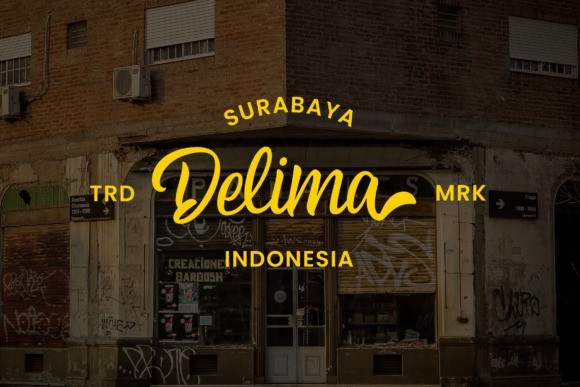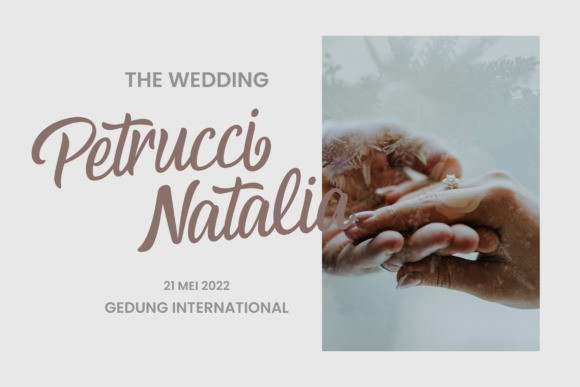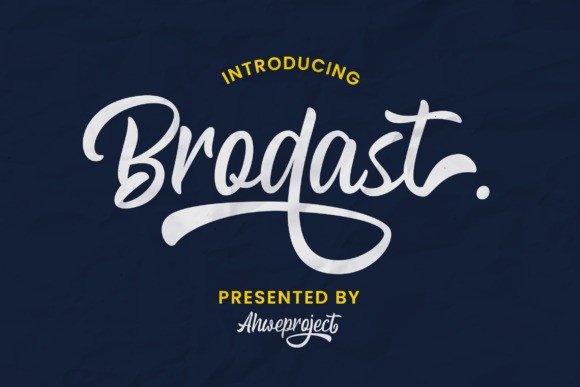
Brodast Font
Brodast Font is a gorgeous and bold handwritten font, crafted to give your headlines and logotype projects a stylish touch. This font reads as strong, confident, and dynamic and can add tons of nostalgic character to your designs.
Brodast is PUA encoded which means you can access all of the beautiful glyphs and swashes with ease!